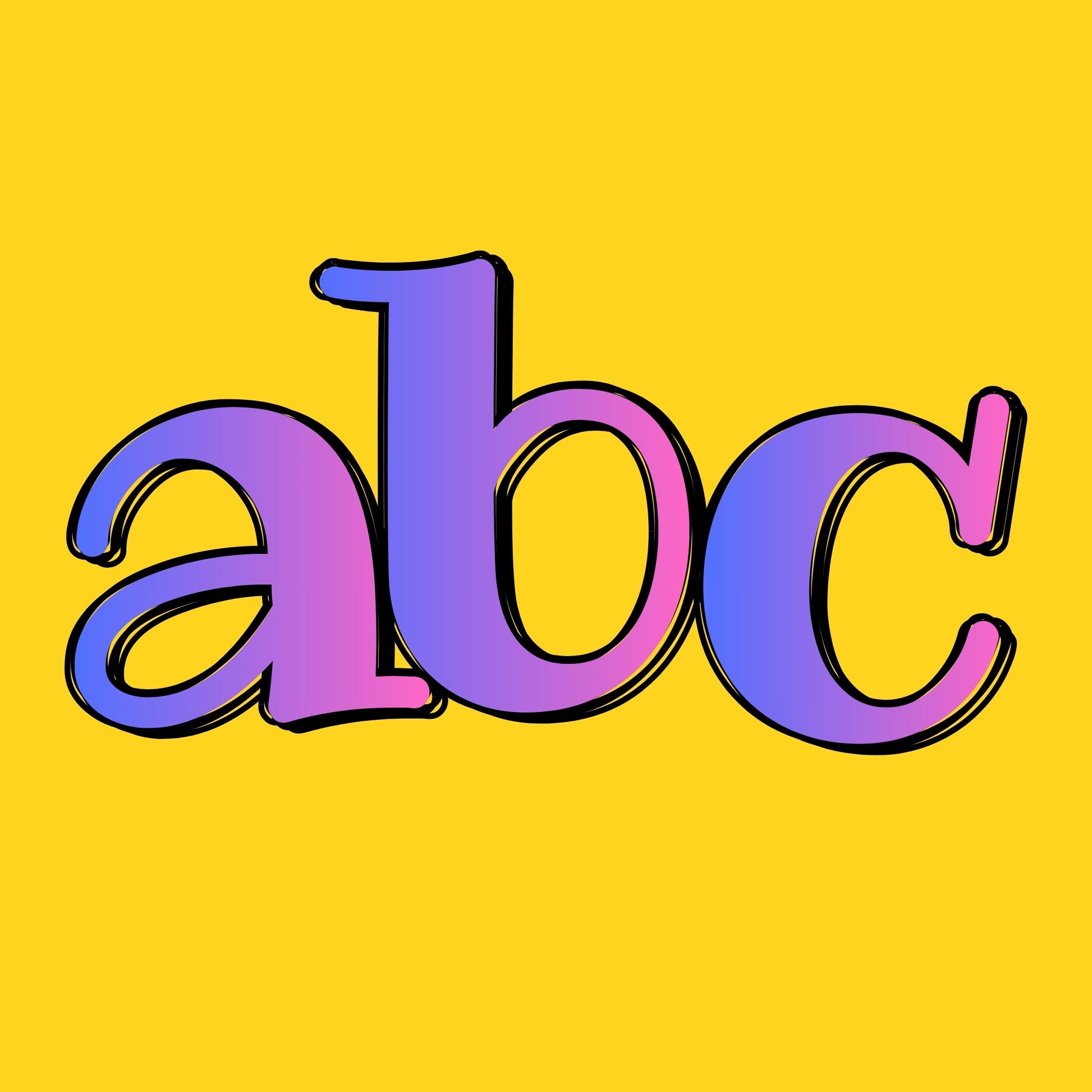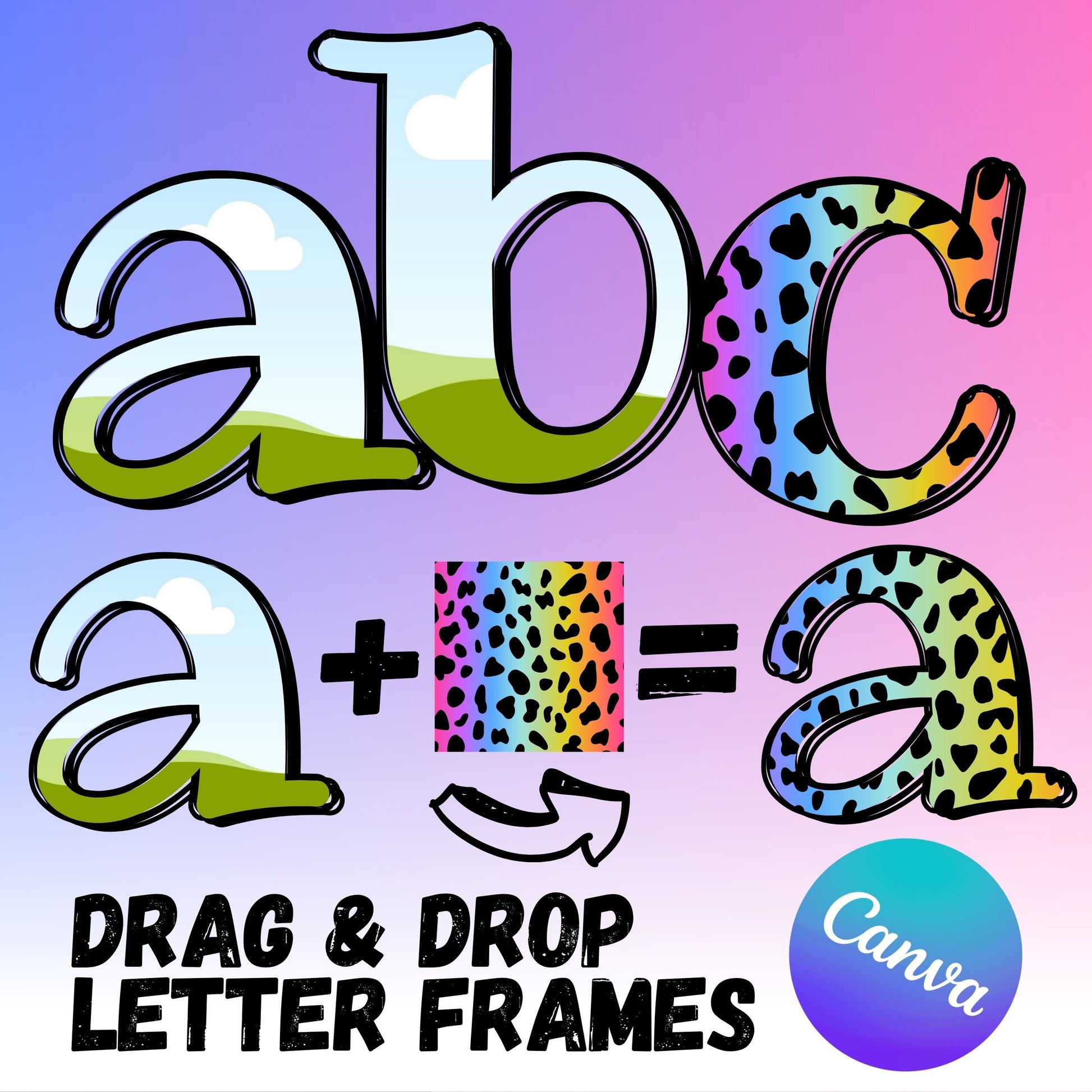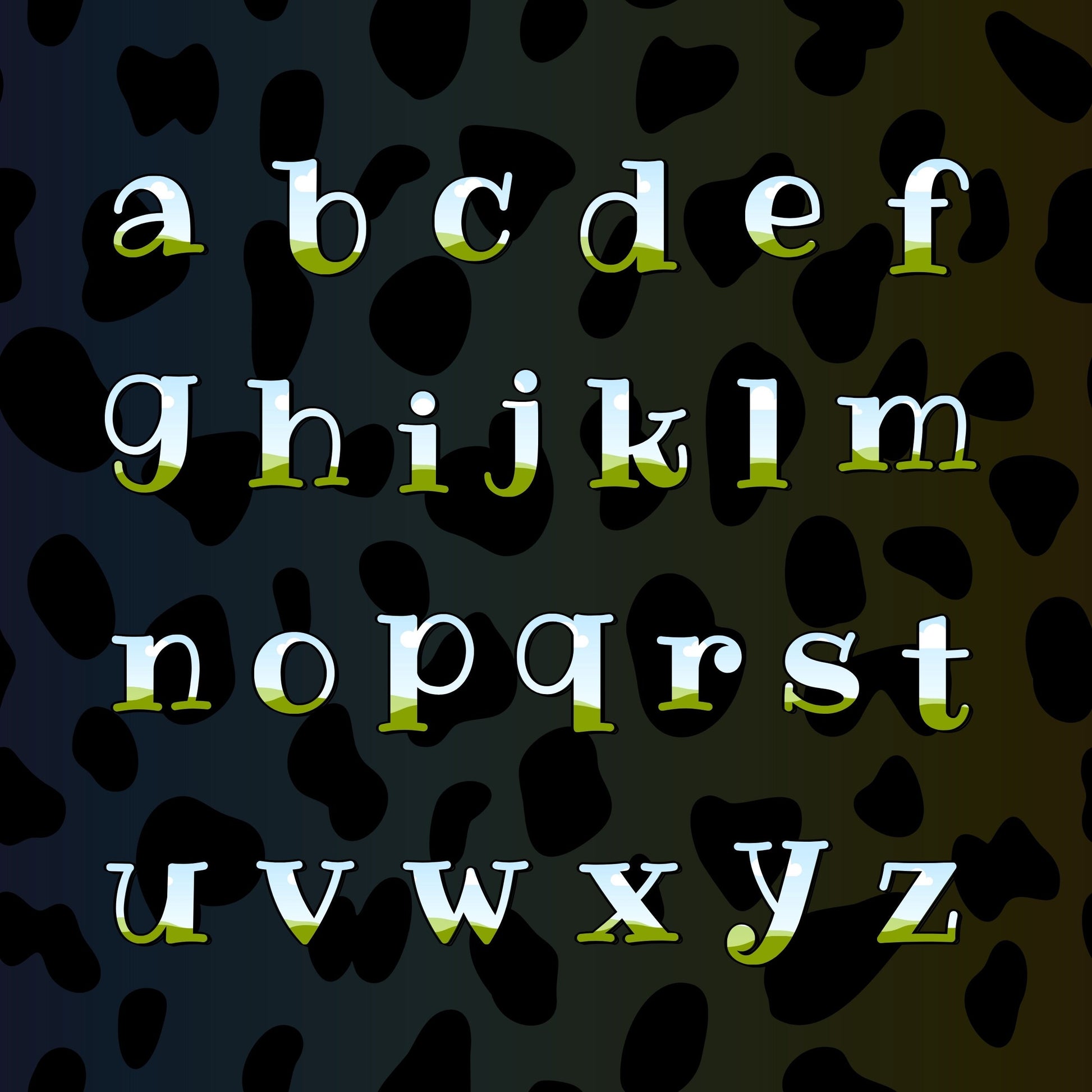
CANVA Doodle Letters - Drag and Drop Frames - Groovy Retro Doodle Fillable Alphabet Font Letters PNG Canva Frame Alphaset Doodle Templates
Alphabet Canva Templates. Editable Canva frames for creating custom letters. Can be filled with any image or color to create unique designs. Drag and Drop images, or highlight and select a color in Canva, to fill and customize these editable frames.